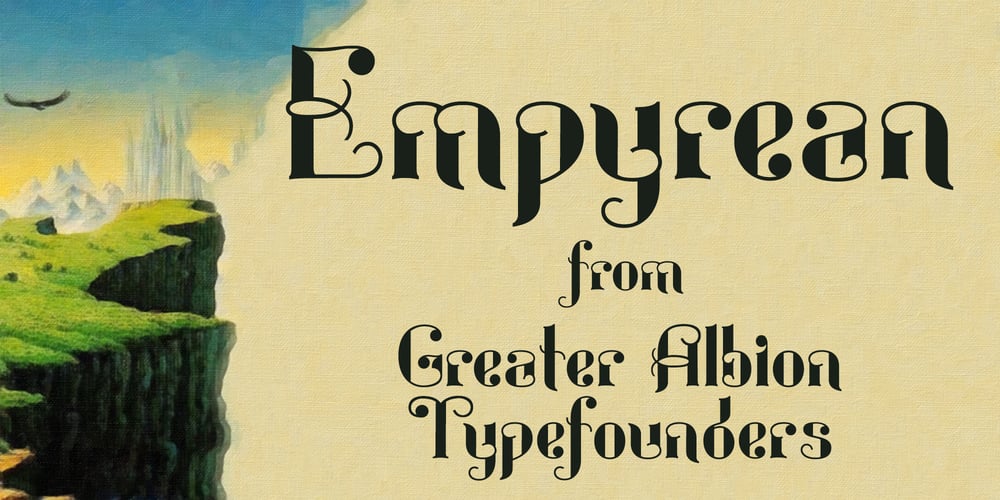
Empyrean Font Family was designed by Paul James Lloyd and published by Greater Albion Typefounders. Empyrean contains 1 styles and family package options. Empyrean is a display Roman typeface which sets out to be deliberately different. Its letterforms explore white space and the art of leaving things out. Empyrean is a futuristic Roman design which builds in respect for typographic tradition with an exploration of design possibilities.